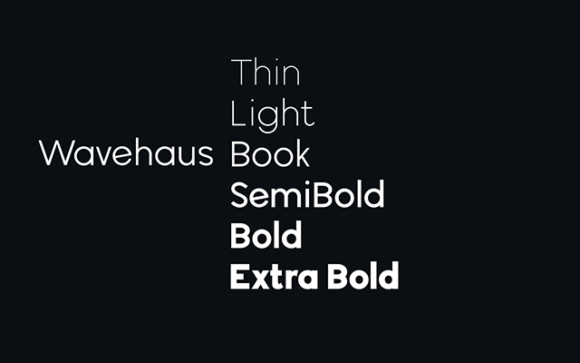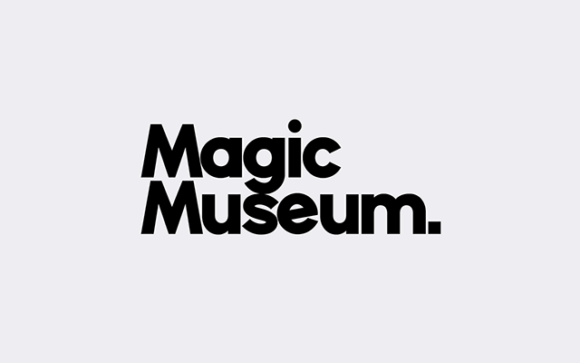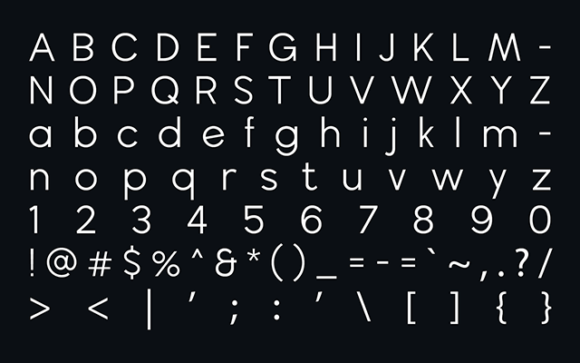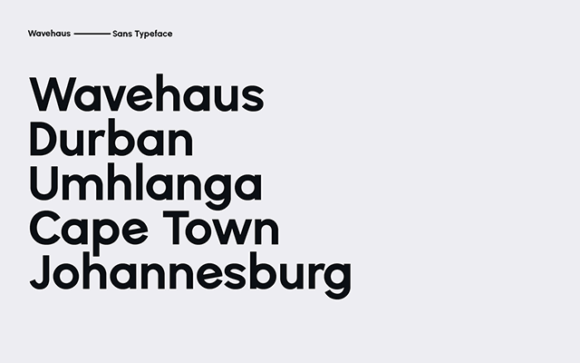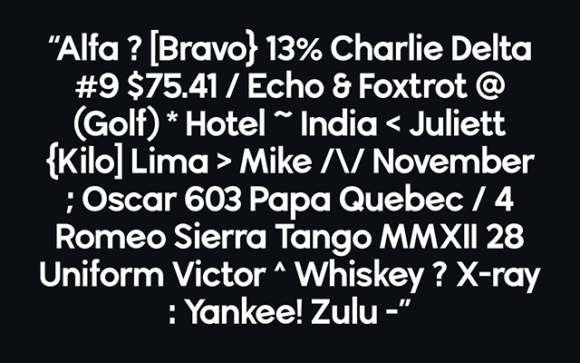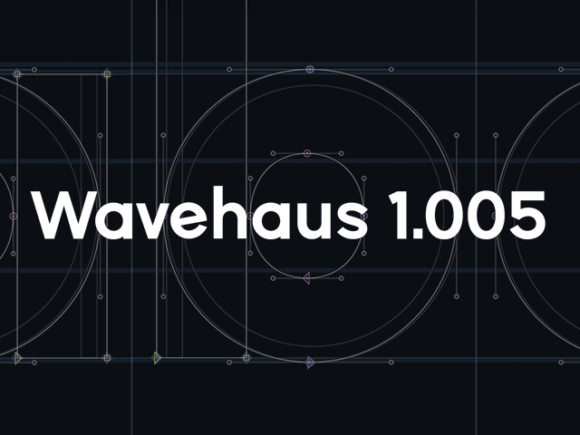
Wavehaus Sans: A free typeface in 6 weights
Wavehaus Sans is a free geometric font family designed by Graham Paterson, Senior Designer based in Cape Town. The typeface comes in 6 weights (Thin, Light, Book, Semibold, Bold and Extra Bold) and includes uppercase and lowercase characters, numbers and the most common symbols.